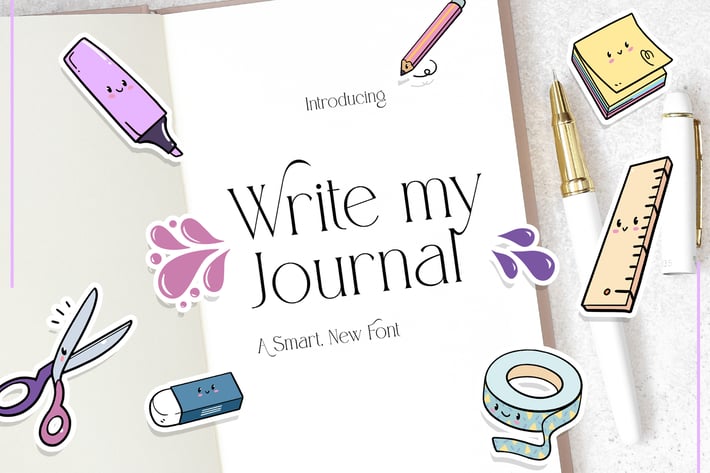
Write My Journal Font
This classic and modern font is ideal for use in your digital journalling and planning or even for sleek and clean business designs.